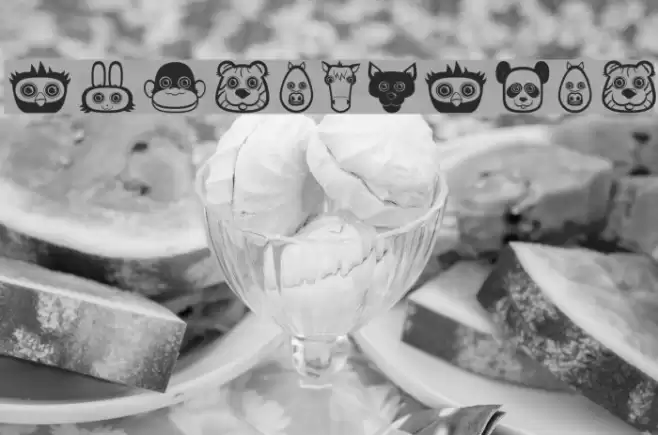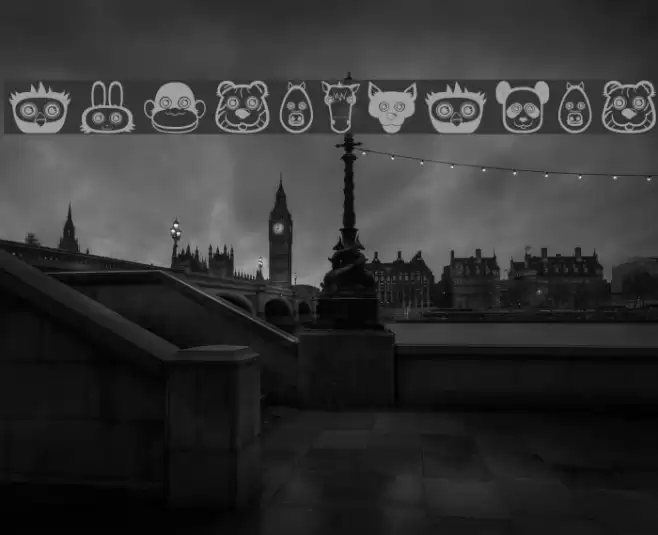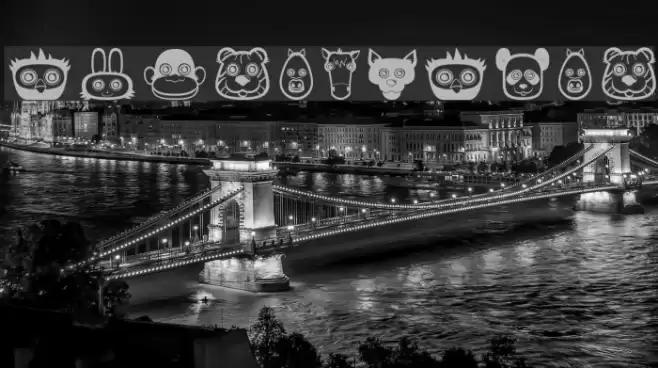
plastic pets Font
plastic pets Description
A playful and whimsical decorative font featuring a variety of cartoon animal faces as glyphs, each character uniquely illustrated with bold outlines and expressive features. The style is informal and fun, with each letter and symbol represented by a different animal head, making it highly distinctive and eye-catching.
Cartoon animal faces form each character in a playful, decorative style from Uncategorized fonts.
- Proposed Projects: Children's books, educational materials, party invitations, playful branding, animal-themed events, posters, and greeting cards.
- Overall Style: Playful, Whimsical, Decorative
- Use Case: Logos, Headlines, Posters, Children's materials